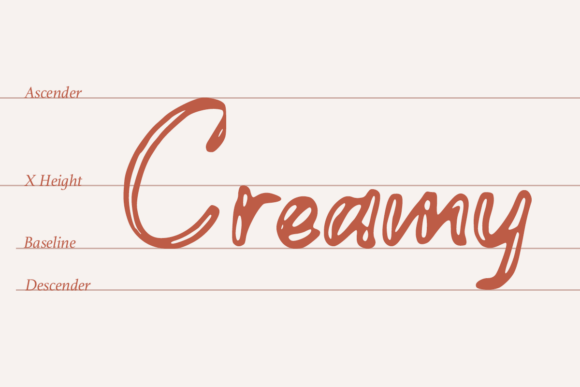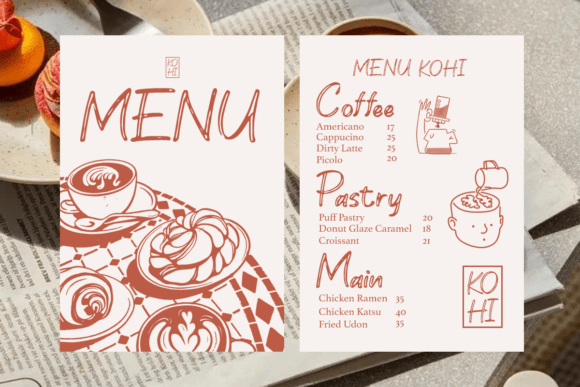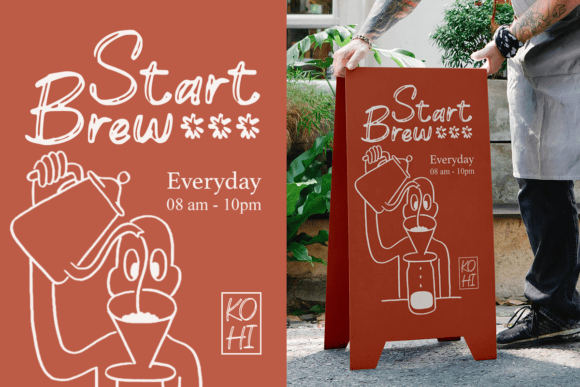
Introduction to Paint Space Font
Have you ever sat in a cozy café, sipping on a rich cup of coffee, and felt inspired to create something beautiful? Maybe it was the warm atmosphere, the friendly barista, or the rustic decor that sparked your imagination. Whatever it was, that moment of creative spark is what we’re trying to capture with the Paint Space Font.
This free download is more than just a font – it’s a design resource that brings warmth and authenticity to every project. With its smooth flow and natural handwritten look, Paint Space Font is perfect for designers who want to add a personal touch to their creative projects. Whether you’re working on a coffee shop branding, product packaging, or social media template, this font is sure to make your designs stand out. And with a transparent background, you can easily place it on any background image or color scheme.
As a valuable addition to any designer’s toolkit, Paint Space Font is a high-quality resource that will elevate your designs and make them feel more genuine. So why settle for a generic font when you can add a touch of personality with Paint Space Font?
Key Features of Paint Space Font
- Unique, hand-drawn style with a transparent background, allowing for seamless integration into any design.
- Perfect for designers looking for a distinctive, creative font to elevate their designs and add a touch of personality.
Honest Review: Paint Space Font
As a designer, I’m always on the lookout for high-quality design resources to elevate my creative projects. Recently, I stumbled upon the Paint Space Font, which offers a unique blend of modern and vintage styles. I was excited to give it a try and see if it lived up to its promise.
What works well: ✨ The Paint Space Font is incredibly versatile and can be used for a wide range of design projects, from logos to web graphics. The font’s sleek and modern aesthetic makes it perfect for contemporary designs, while its subtle vintage flair adds a touch of warmth and character. I also appreciate the fact that the font is available for free download, making it a valuable resource for designers on a budget.
What’s not so great: ⚠️ One of the limitations of the Paint Space Font is that it doesn’t come with a transparent background option, which can make it a bit tricky to use in certain design scenarios. Additionally, the font’s file size is a bit large, which can slow down your design workflow.
Overall, I’m impressed with the Paint Space Font’s high quality and versatility. While it has some limitations, it’s a valuable addition to any designer’s toolkit, especially for those working on creative projects that require a unique and stylish font.
Here are some key features of the Paint Space Font:
- High-quality design resource
- Modern and vintage style options
- Perfect for logos, web graphics, and more
- Large file size
- No transparent background option
Paint Space Font
The Paint Space Font is a unique and creative design resource that can elevate any project. With its high-quality, customizable letters, you can create stunning visual effects in various design applications.
Tips for Getting the Most Out of Paint Space Font
To get the most out of Paint Space Font, try using it with a transparent background to create a sense of depth and dimension. You can also experiment with different font sizes, colors, and styles to create unique effects.
The Paint Space Font is perfect for creative projects, such as designing custom logos, creating social media graphics, or even designing custom fonts for your brand. You can also use it to add a touch of creativity to your presentations, documents, and flyers.